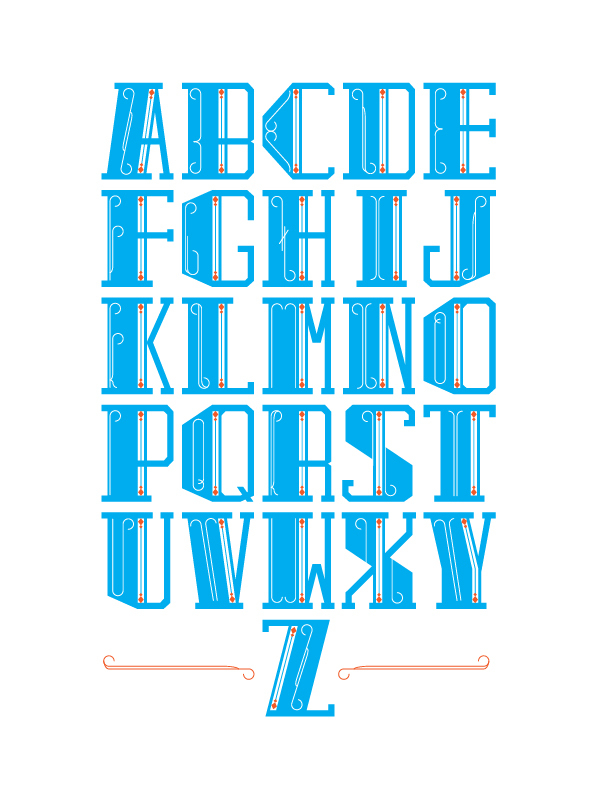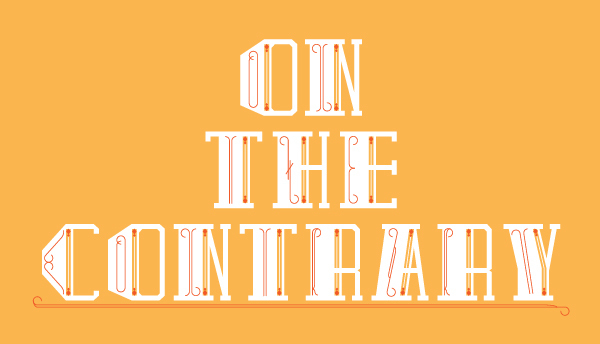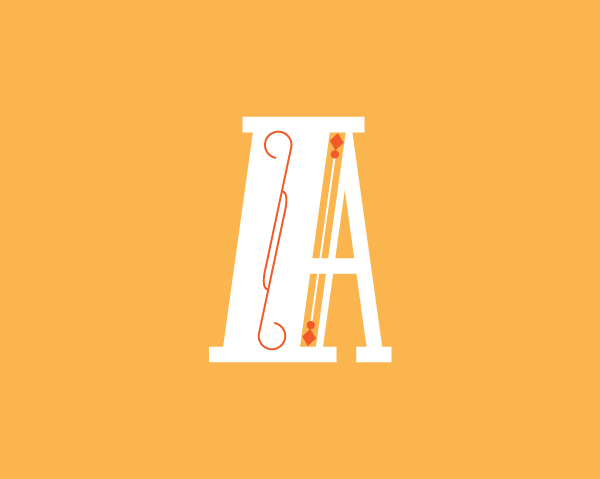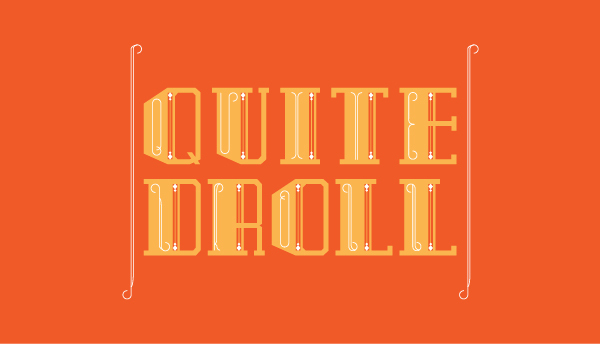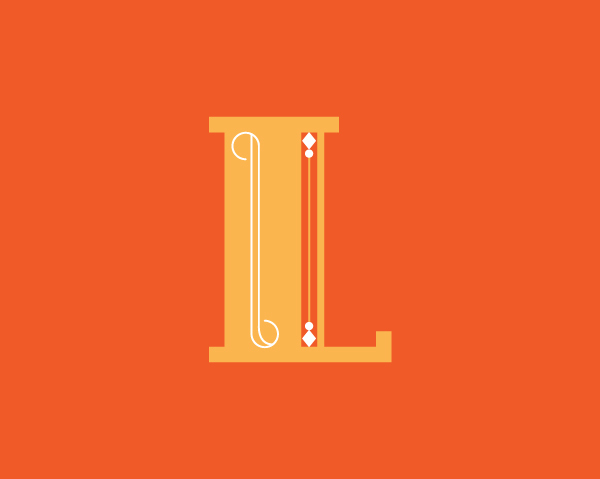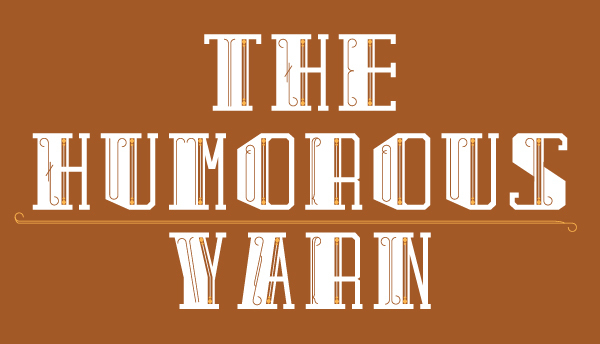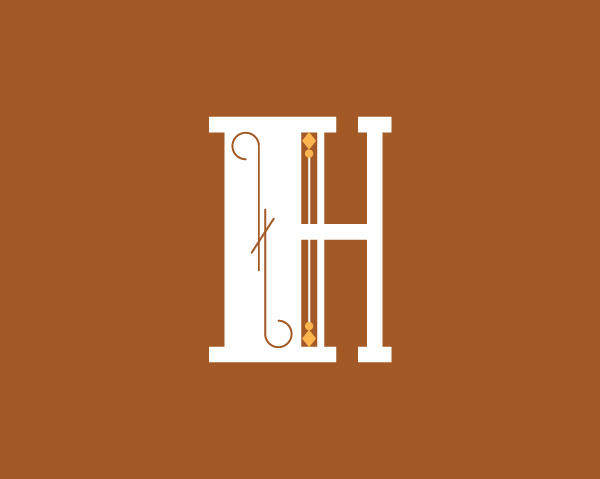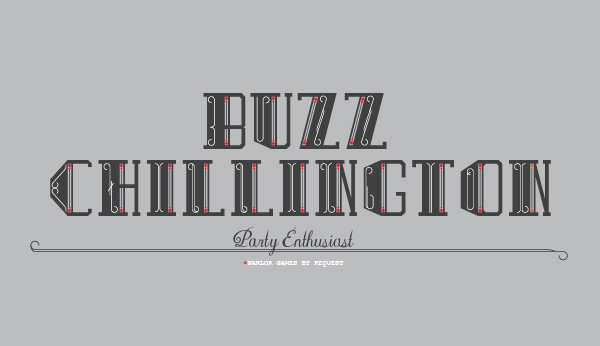
Buzz Chillington
This is actually the first typeface I ever made. This is a curious exploration of type based on a 19th century party enthusiast. The whole idea actually came about after a friend said he would dress up as Buzz Killington for Halloween next year. I thought there should be an alter - ego called Buzz Chillington. Thus this droll typeface was created, based on a "hipper version" of the former dandy. So I fashioned some of his quotes in a less than Killington way.